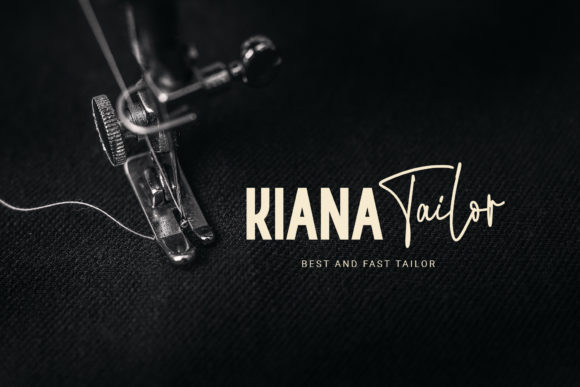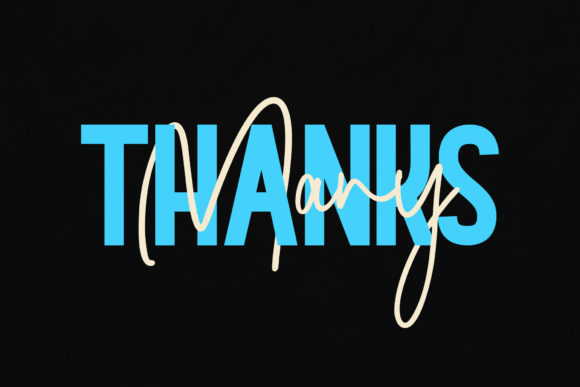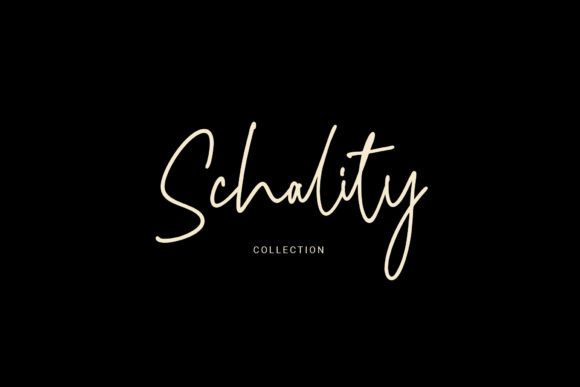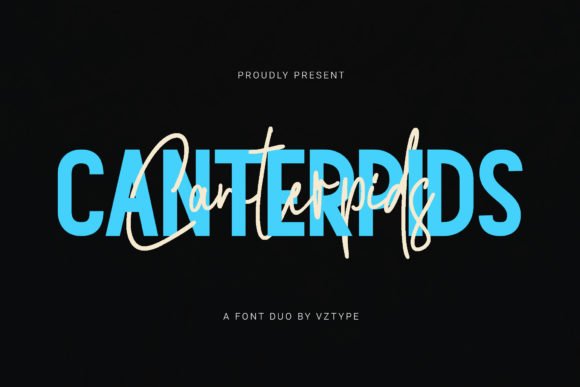
Introduction to Canterpids Font Duo Font
Canterpids Font Duo is a stunning and comprehensive duo font (script and display), ideal for giving your projects a branded but delicate feel.
The two included styles can be combined together perfectly but are also beautiful on their own .
Canterpids Font Duo Font offers exceptional quality and versatility, making it a valuable addition to your design toolkit. Whether you’re creating for personal projects or commercial use, Canterpids Font Duo Font delivers professional results.